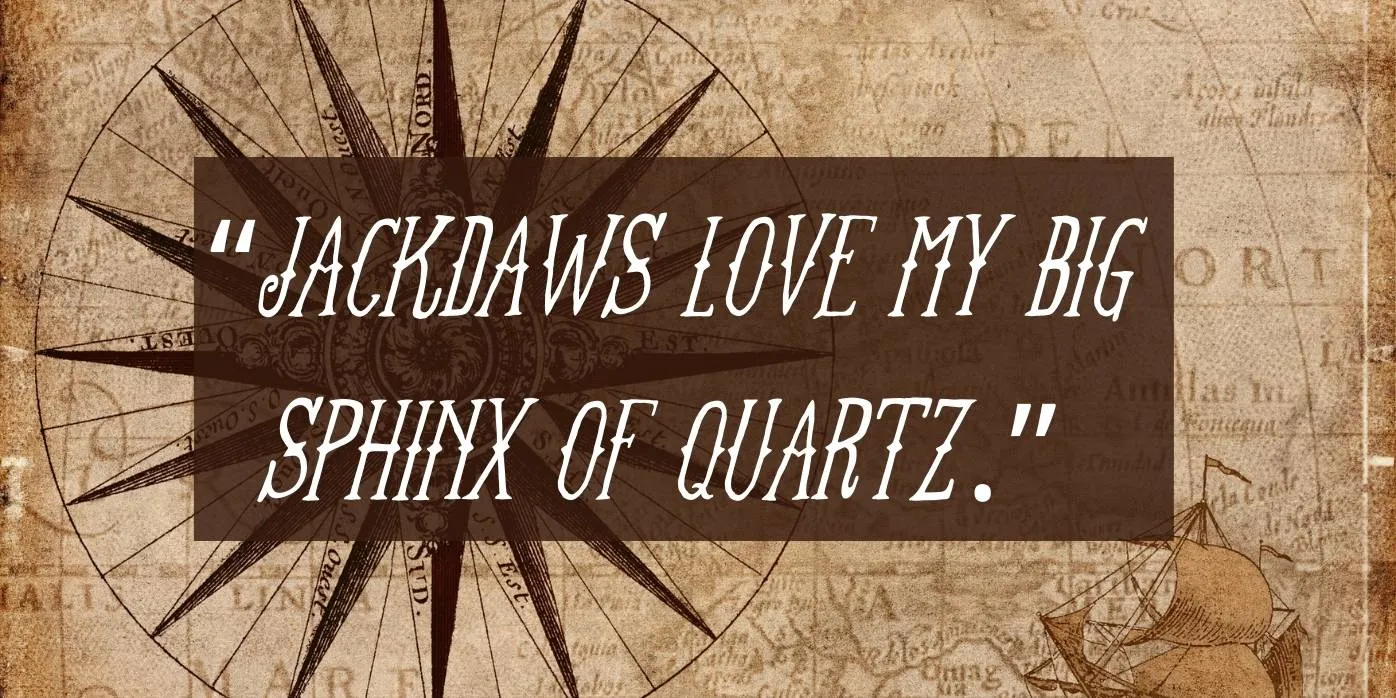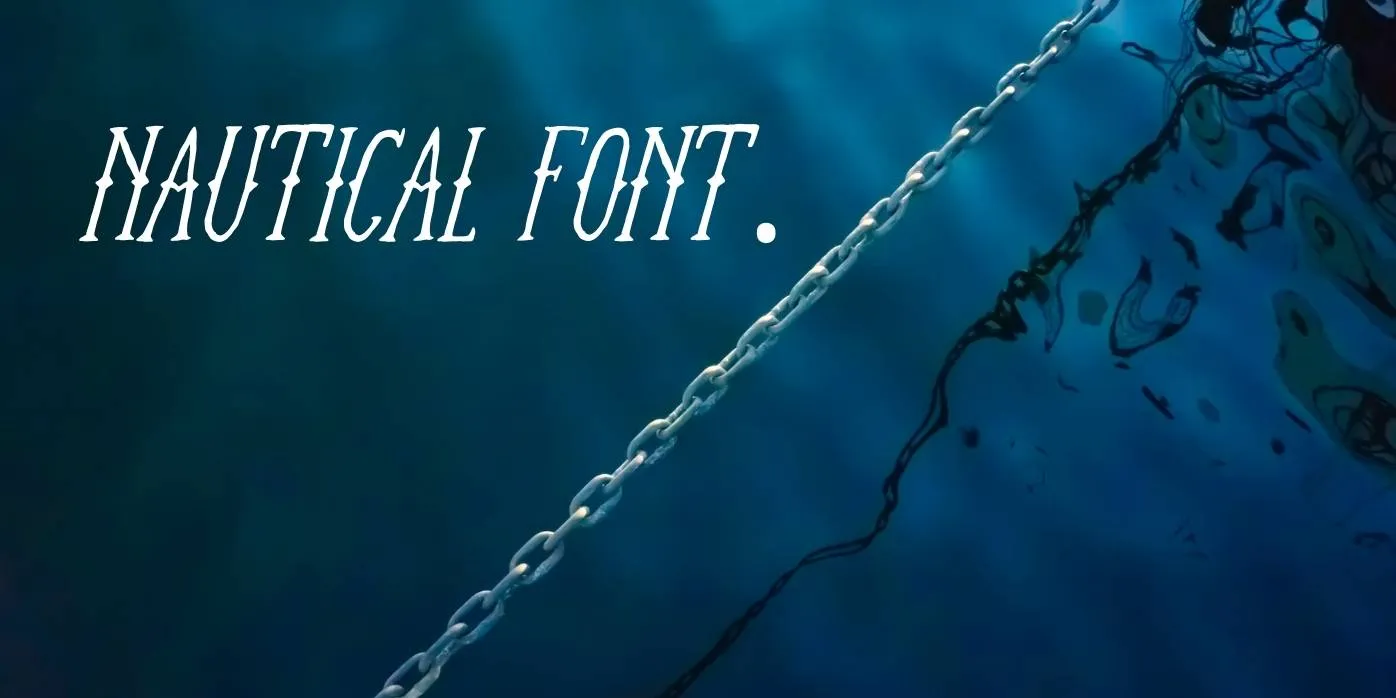
Nautical Font
Here, we are introducing a classic and stunning typeface this is famous by a name Nautical font. This soft-looking typeface belongs to the Display typeface. This attractive font family was designed by the most popular and famous  Denzel Designs. This awesome font is suitable for almost all of your text designs as well as graphic designs.
Many organizations and corporations need the best font for the various tasks they must pick out this cozy typeface. This marvelous typeface was developed on giving ideas from water wave motion. You can use similar fonts of this glorious font family like  Quentin font. This beautiful typeface also provides the very advanced facility of its online tool generator.
By using its online tool you can change all the textual designs to graphics designs. Furthermore, it allows you to create various designs f your interest more quickly and easily. It is available in various types of common and unique weights. Some of its famous weights are Bold, simple, elegant, and many more.